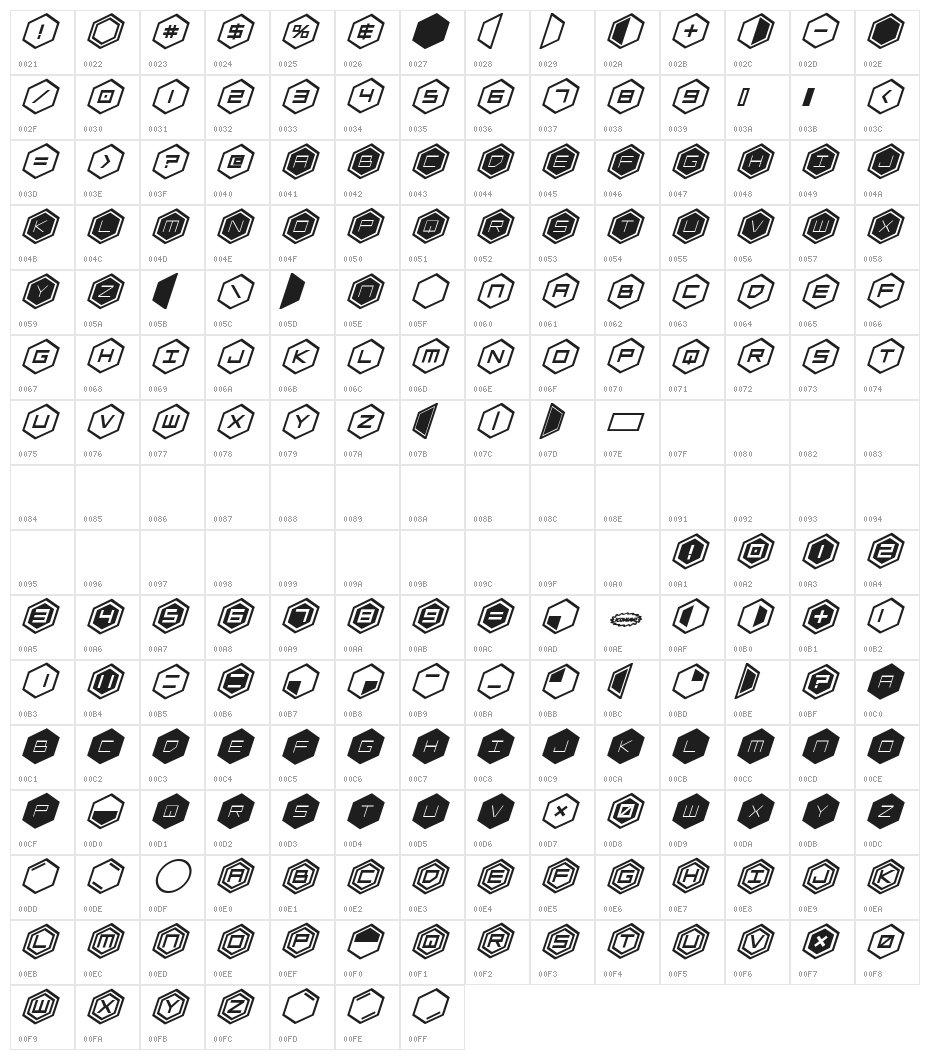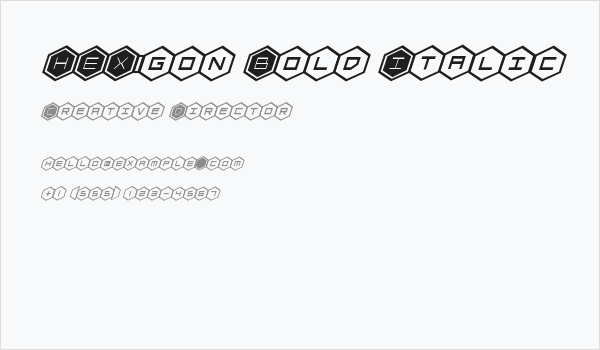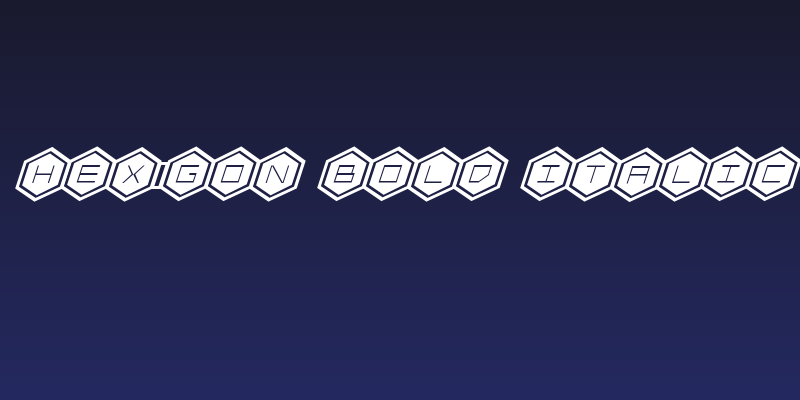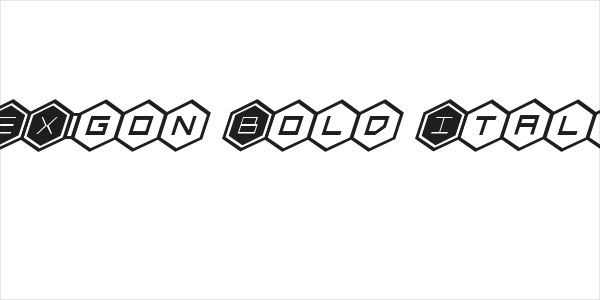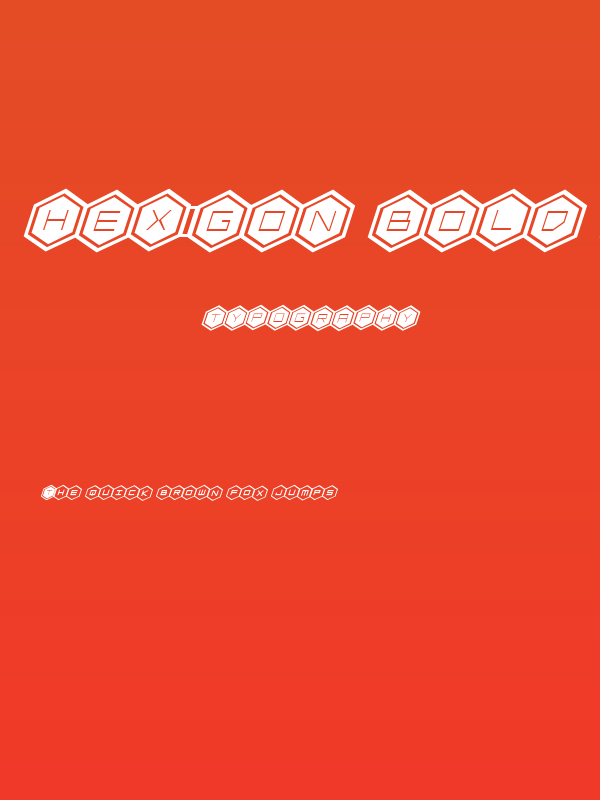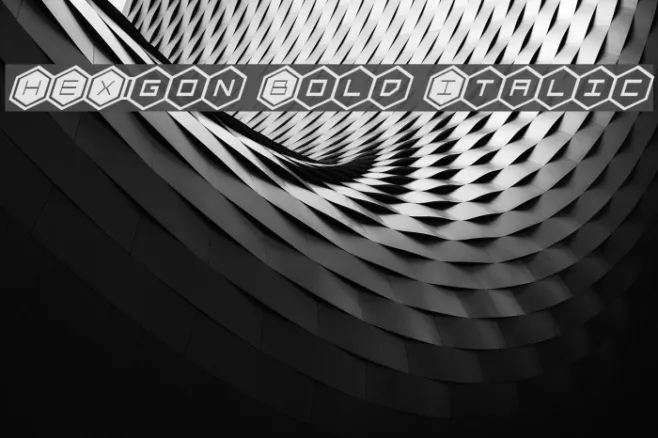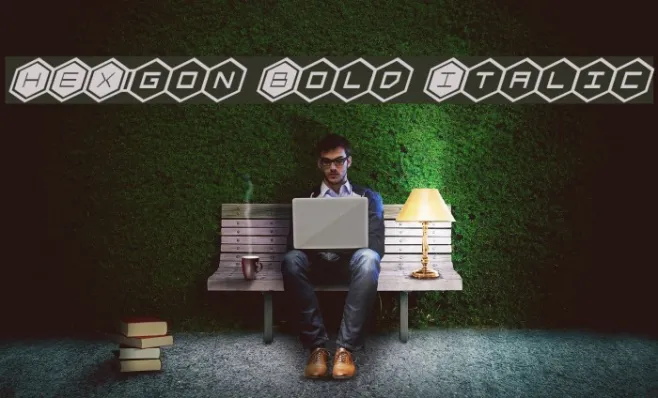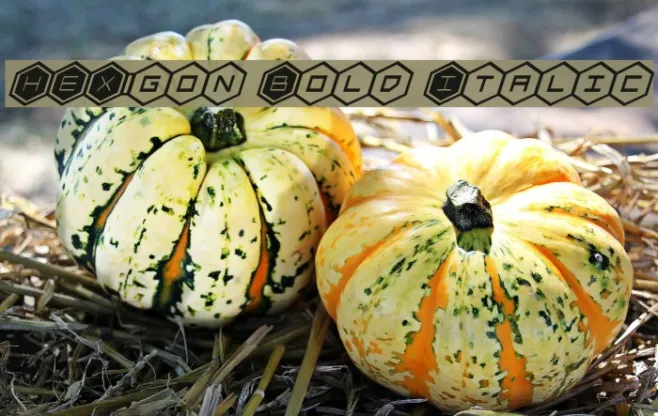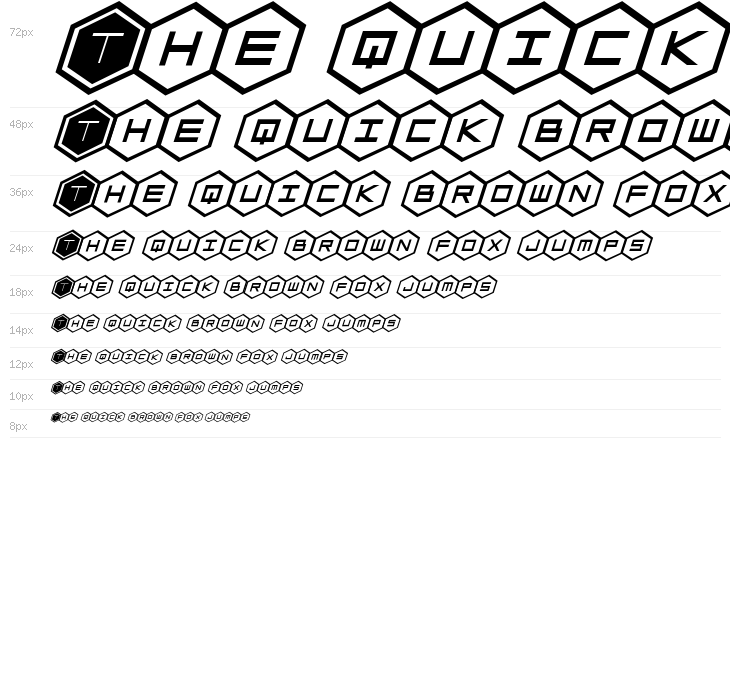
HEX:gon Bold Italic Font
HEX:gon Bold Italic Description
This font features a bold and italicized style with each character encased in a hexagonal shape, creating a unique and futuristic appearance. The letters are uppercase and lowercase, with numbers and special characters, all maintaining the hexagonal theme. The bold strokes and italic slant add a dynamic and modern touch, making it stand out in any design. The geometric structure gives it a tech-inspired look, suitable for projects that require a distinctive and eye-catching typeface.